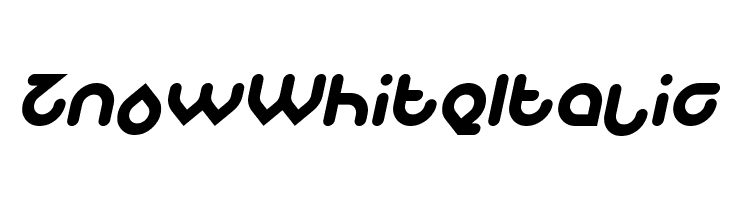
A bold, elegant script font with intricate, flowing letterforms.
An elegant script font with flowing, cursive letterforms and intricate details.
A modern, segmented font with a bamboo-inspired design.
An elegant, italic font with medium weight and classic calligraphic style.
A playful, hand-drawn style font with bold, rounded characters.
A modern blend of Roman and Uncial styles with bold, sweeping curves and sharp serifs.
A bold, intricate blackletter font with a medieval flair.
A decorative, narrow font with outlined characters and artistic flair.
A decorative and artistic font with a blend of sharp angles and smooth curves.
An outline font with a blend of serif and decorative elements, offering a bold and artistic style.
A bold, condensed, and oblique font with a modern and dynamic style.
A semi-bold, ultra-condensed font with a modern, minimalist style.
A bold, oblique, and condensed font with a modern and dynamic style.
A bold, condensed, and oblique font with a modern and dynamic style.
A bold, condensed font with high contrast and a modern, impactful style.
A tall, extra condensed, semi-bold font with a modern and impactful style.
A bold, expanded font with uniform strokes and a modern, impactful style.
Bold, condensed, and oblique font with a modern and dynamic style.
A bold, geometric font with strong, blocky letterforms.
A bold, oblique font with strong, angular lines and a dynamic slant.
Bold, expanded, and oblique font with a modern and dynamic style.
A bold, condensed font with a geometric and modern style.
A modern, geometric sans-serif font with a clean and uniform appearance.
A modern, light sans-serif font with clean lines and excellent readability.
A dynamic and elegant script font with fluid, cursive letterforms.
A bold, rounded font with a modern and playful style.
An elegant, flowing script font with ornate, cursive letterforms.
A bold, dynamic script font with a modern and energetic style.